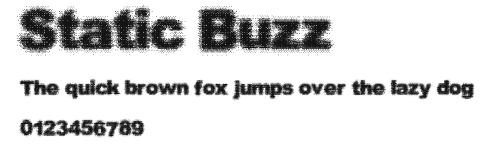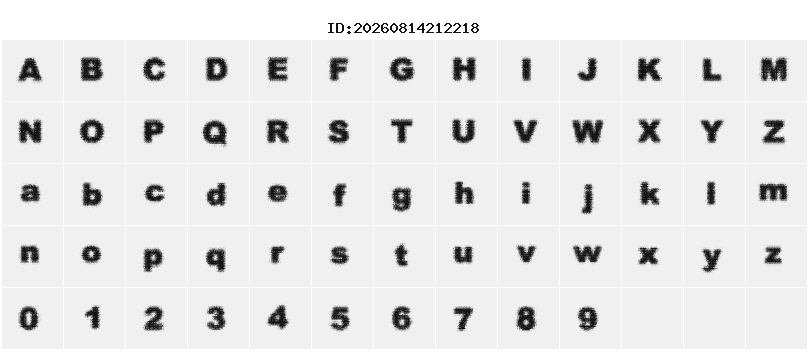
• Font Name: Static Buzz
• Designer: Anfa
About Static Buzz.ttf
Static Buzz.ttf is a modern, elegant sans-serif font designed for ultimate readability and visual harmony. Perfect for branding, headlines, web design, and print materials.